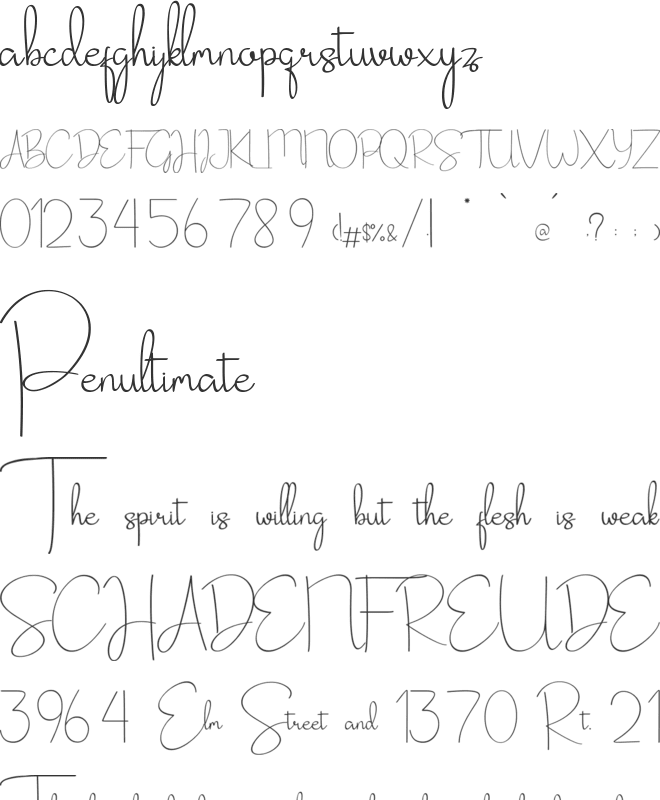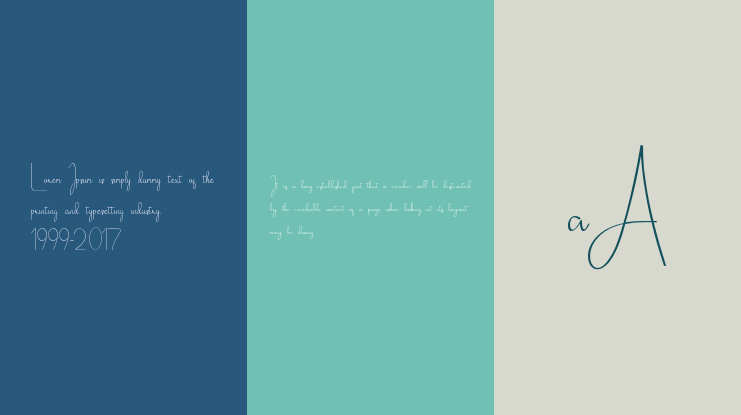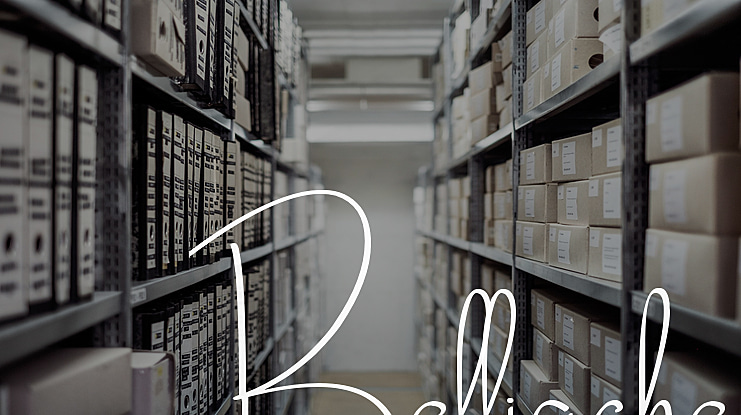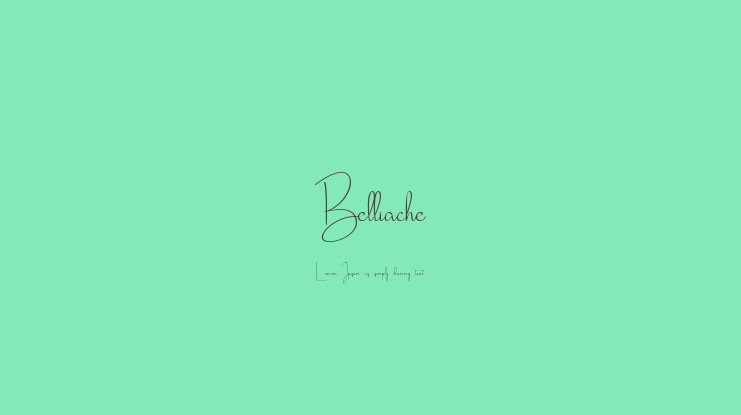
Belliache Font
Introduce my newest font. It's called Belliache! Belliache is sweet letterhand font. Perfect for bussiness card, branding, wedding, invitation, etc.